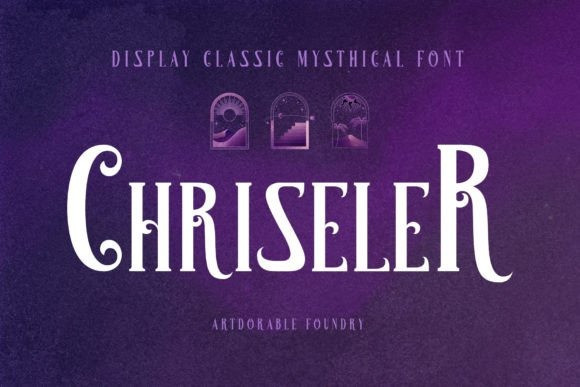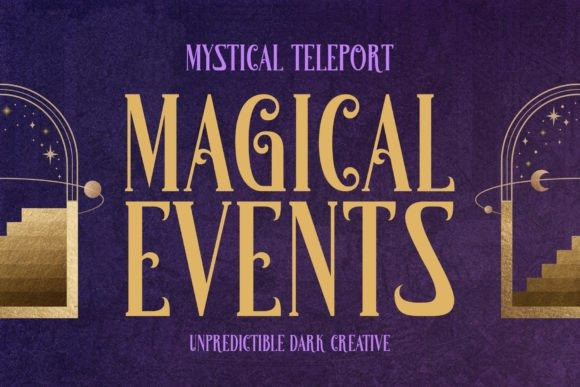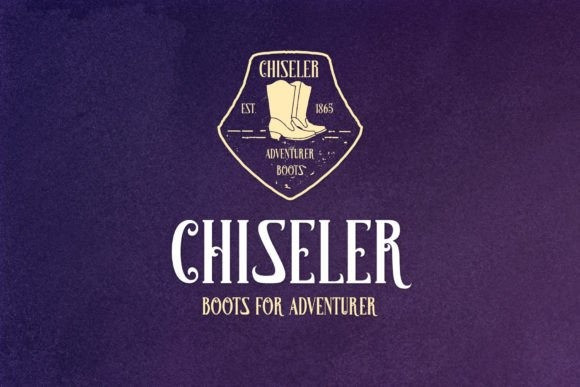
Chiseler Font
Chiseler is a stylish and elegant display font. Masterfully designed to become a true favorite, this font has the potential to bring each of your creative ideas to the highest level!